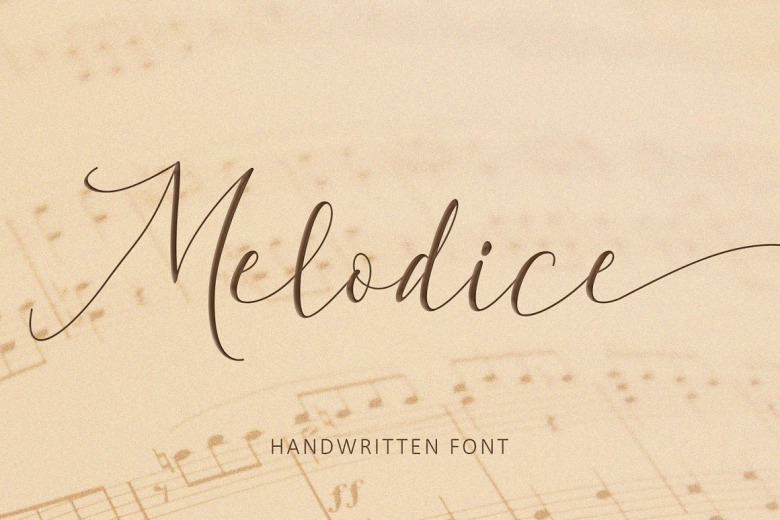
Melodice Font
Melodice is a natural Handwritten Font, the font bold & strong. This font are perfect for Logo Design, Branding, Clothing Design, Poster and others design concept! You can use it anywhere you want to, you decide where! Give your design with this product amazing touch. Melodice excellent as a simple typeface & crafty hand written typography, it suits for various creative projects like social media posts, e-commerce, clothing brands, magazine layouts, business cards, and many more!
Melodice Handwritten Script Font